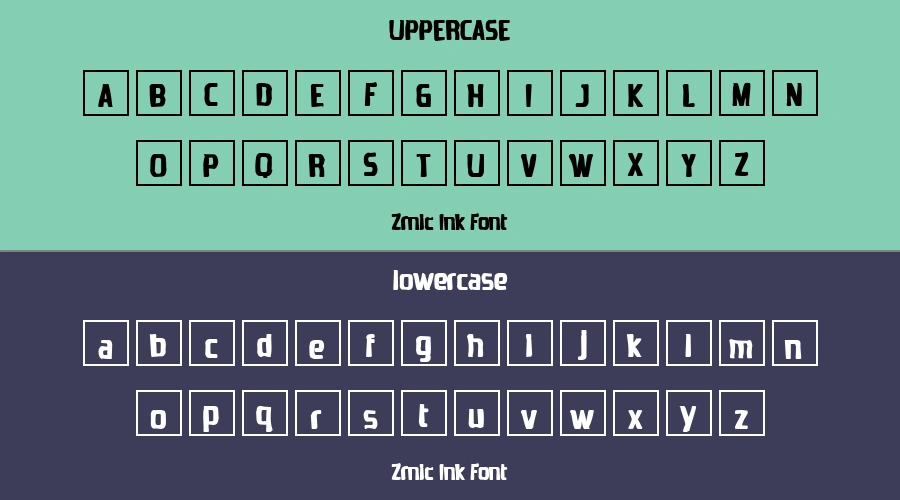
About Zrnic Ink Font
Zrnic Ink Font represents a sophisticated approach to type design, balancing rectangular counters with originality. Perfect for web design, this font family showcases impressive memorability and technical precision throughout its character set. Designers appreciate its versatility and reliability.
Designers will appreciate nuanced touches including elegant spacing and classic proportions, adding sophistication to any project. These features become apparent in brochures, where scanning accuracy matters most. The careful treatment of descender depth and historical reference ensures optimal performance.